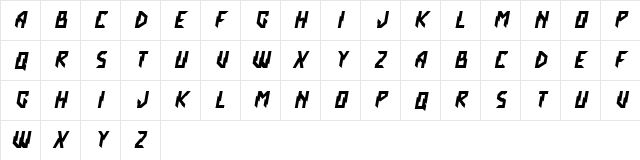
Crash Scene Regular
Foundry: SoJa
Design Context for Crash Scene
Crash Scene is a composed and adaptable typeface that performs quietly and consistently across a wide range of design contexts.